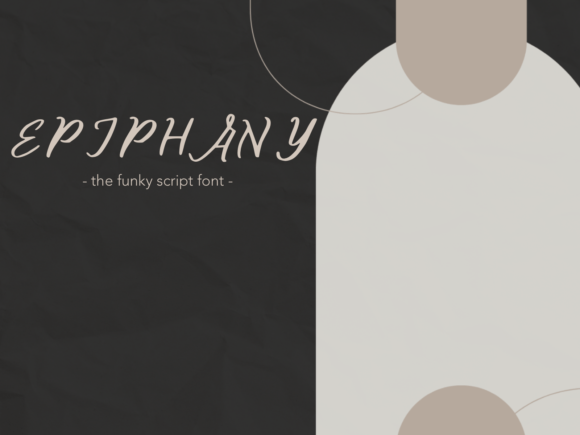
Unlocking the Magic of Handwritten Design
Have you ever been stuck on a design project, pouring over ideas and inspiration, and suddenly – it hits you? The perfect concept, the perfect font, the perfect look. For many designers, that moment is what makes all the hard work worth it. And for those who love handwritten fonts, that moment might just come with the discovery of the Epiphany Font.
This elegant font is designed to bring a touch of sophistication and whimsy to any design project. From logos and wedding invitations to social media posts and product packaging, the Epiphany Font is the perfect choice for designers who want to add a handwritten feel to their work. Its fashionable and stylish design makes it a valuable asset for any creative project, and its versatility ensures that it will never go out of style.
Epiphany Font Key Features
- Unique Characteristics: Epiphany Font features a unique blend of modern and elegant design elements, with subtle flair and decorative flourishes.
Epiphany Font Review
When I first laid eyes on Epiphany Font, I was immediately drawn to its elegant and sophisticated aesthetic ✨. The font’s clean lines and minimalist design make it perfect for creating a sense of calmness and serenity in any design project. Whether it’s for a logo, brochure, or website, Epiphany Font is sure to bring a touch of class and sophistication.
- ✨ Elegant and sophisticated design aesthetic
- ✨ Highly versatile and suitable for a wide range of projects
- ✨ Clean lines and minimalist design make it perfect for creating a sense of calmness and serenity
- ⚠️ Limited character set and glyph support
- ⚠️ May not be suitable for projects that require a lot of bold or dramatic typography
- ⚠️ Some users may find the font too subtle or understated
Overall, I think Epiphany Font is a great choice for designers who want to create a sense of elegance and sophistication in their work. While it may have some limitations, the font’s versatility and clean design make it a great addition to any design toolkit.
Getting the Most Out of Epiphany Font
Here are some tips to get the most out of Epiphany Font:
- Use Epiphany Font in combination with other fonts for a unique look.
- Customize the font to fit your brand identity.
Epiphany Font is perfect for:
- Designing a unique and memorable logo.
Alternatives to Epiphany Font for Designers